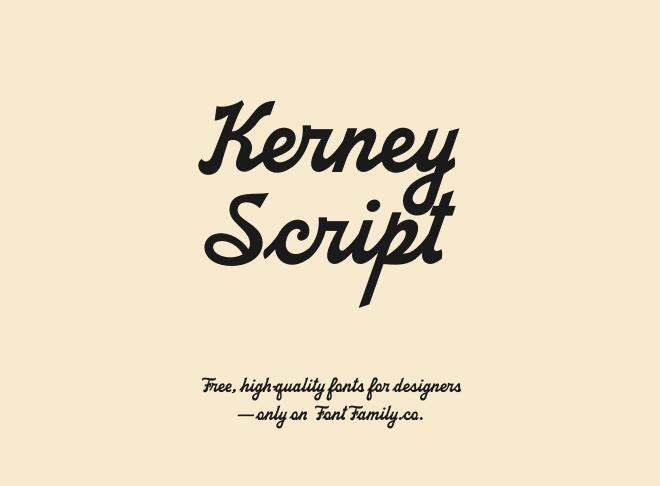
Kerney Script Font
Kerney Script Font is an elegant, handwritten typeface designed by James Kerney. With its fluid, organic lines and distinctive style, it exudes a sense of sophistication and grace. This font is perfect for branding, wedding invitations, book covers, stationery, marketing, magazines, and more. It's a versatile font that looks stunning in all caps, with a set of elegant, long lowercase letters. Compared to other script fonts, Kerney Script Font stands out with its unique 'handwritten' feel, making it a great choice for projects that require a personal touch. Its elegant yet playful nature allows it to be used in a wide range of design contexts. Free for personal use, Kerney Script Font is a must-have for any designer's toolkit.